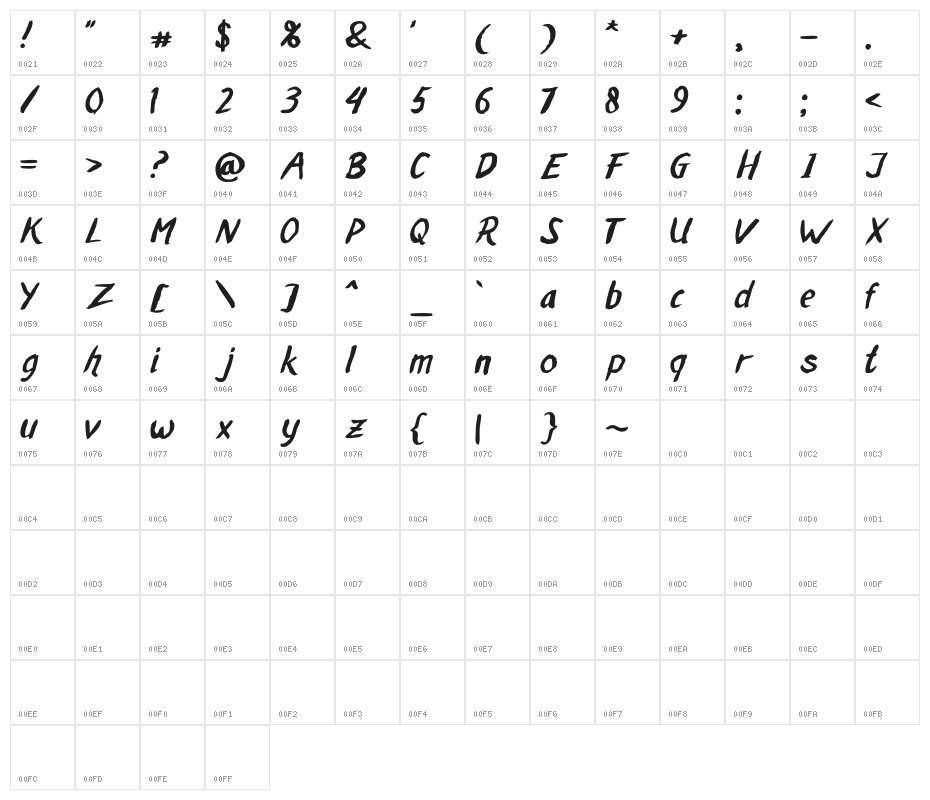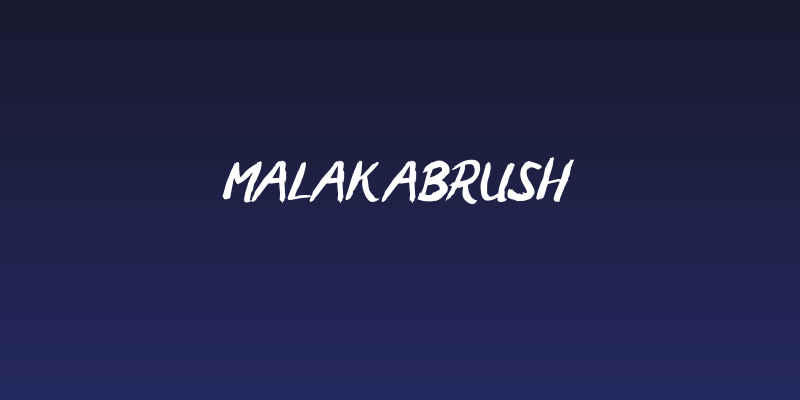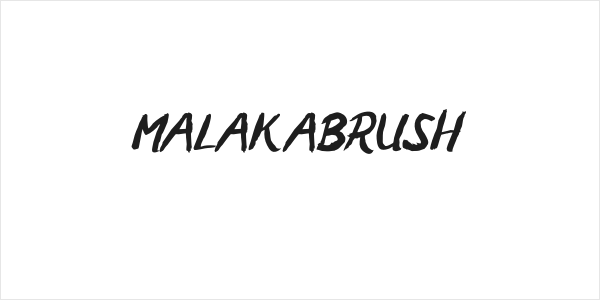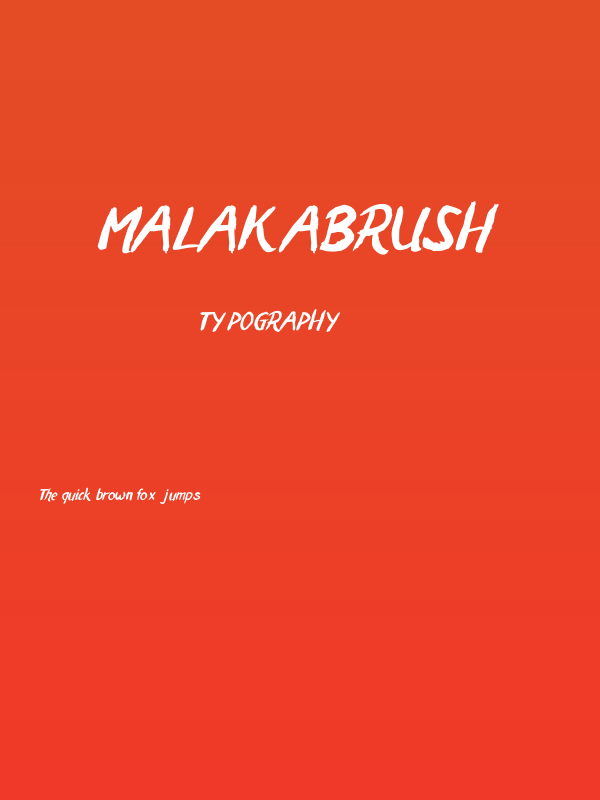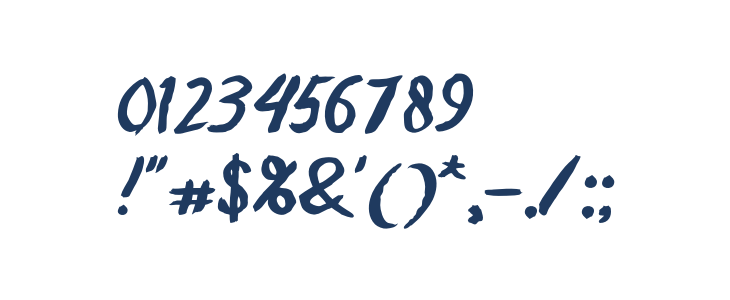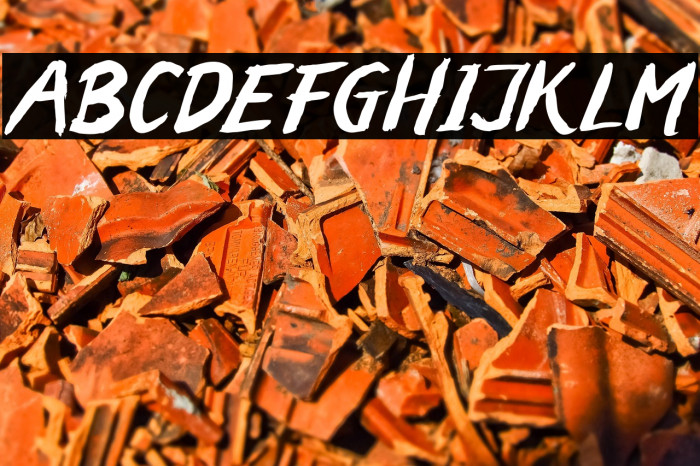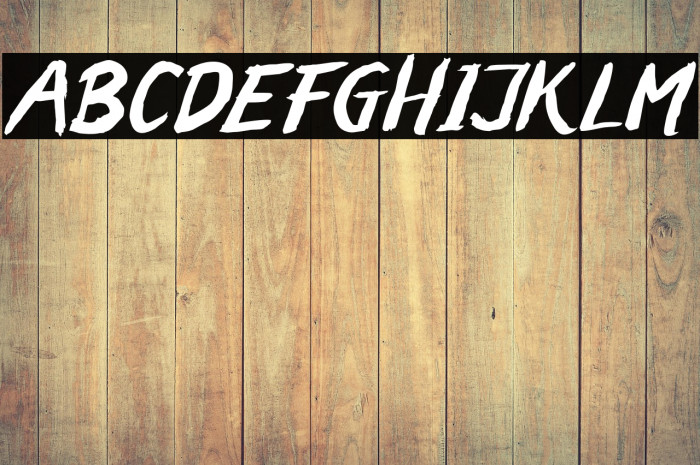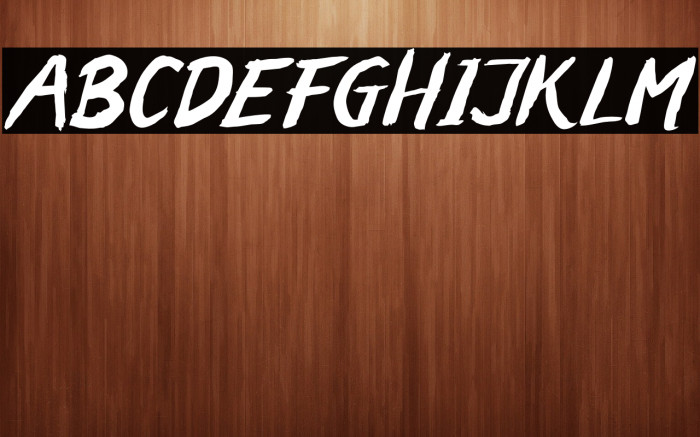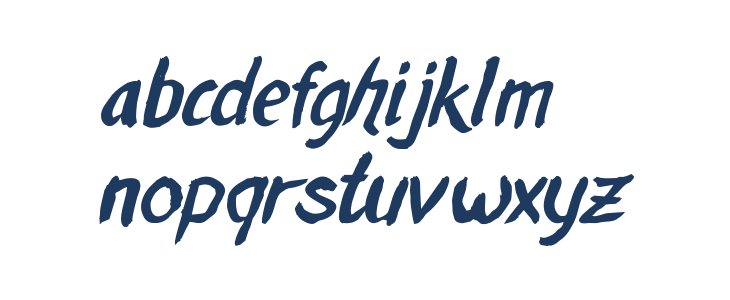
MALAKABRUSH Font
MALAKABRUSH Description
This font exudes a dynamic and energetic style, characterized by its bold and expressive brush strokes. The letters have a hand-painted appearance, with varying thicknesses that add a sense of movement and fluidity. The uppercase letters are slightly slanted, giving them a forward momentum, while the lowercase letters maintain a consistent flow. The numbers and special characters follow the same artistic brush style, ensuring uniformity across all characters. This font is ideal for projects that require a personal and artistic touch, such as invitations, posters, or branding materials that aim to convey creativity and spontaneity.
| Use Case | Logos, Headlines, Artistic designs |
| Proposed Projects | Ideal for creative projects like invitations, posters, branding, and artistic designs. |